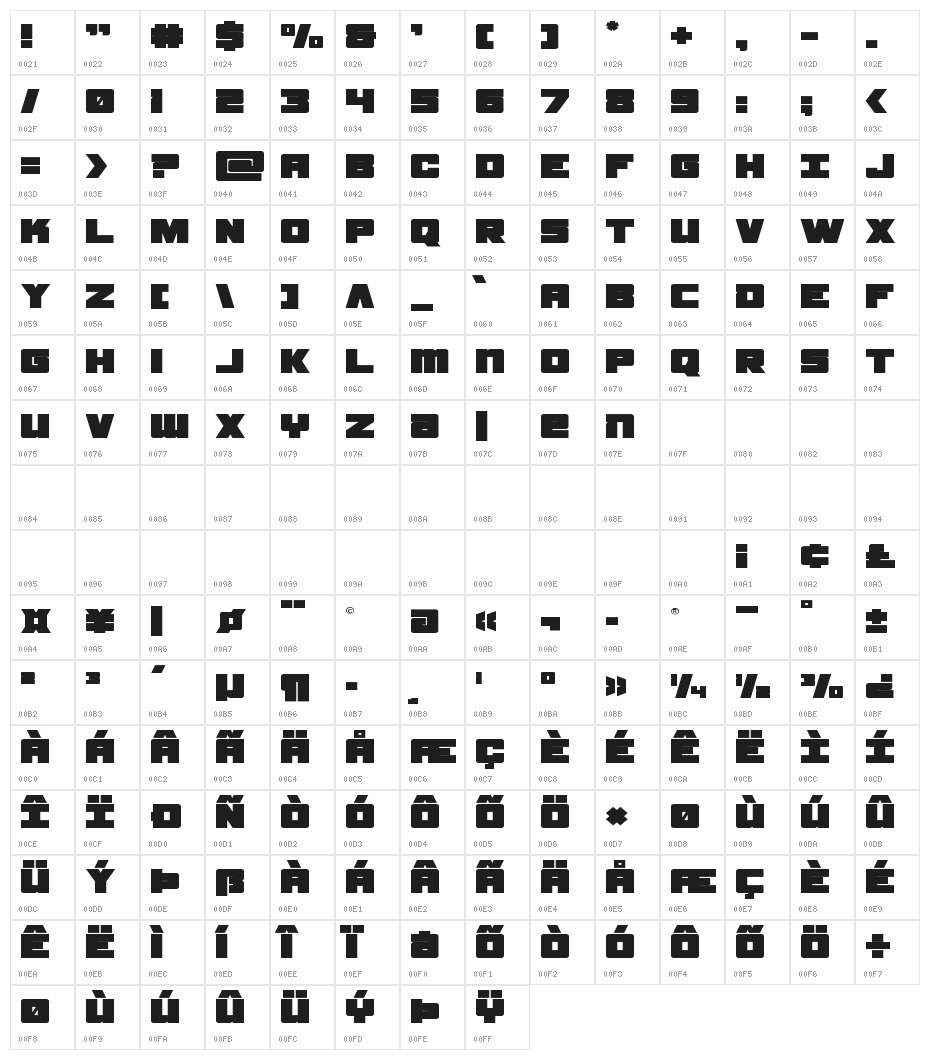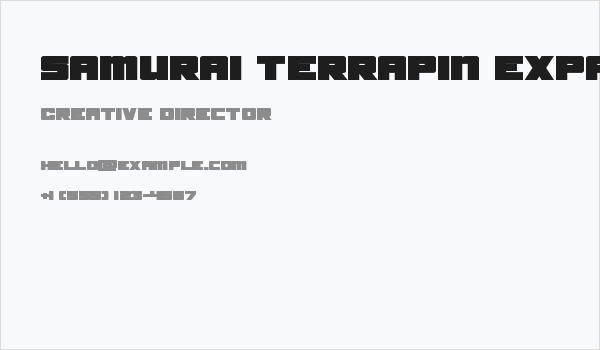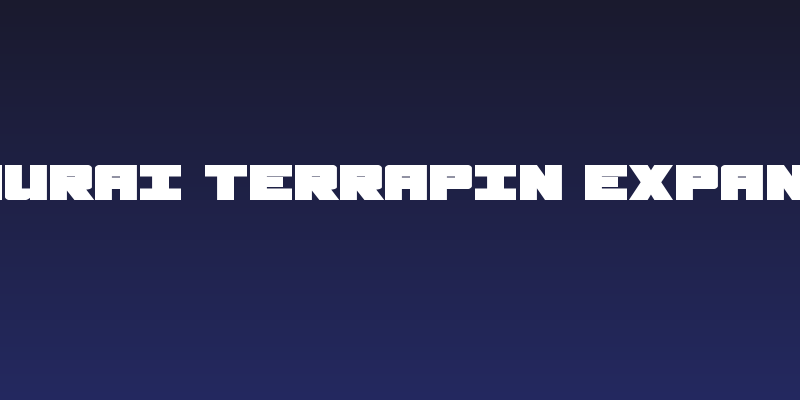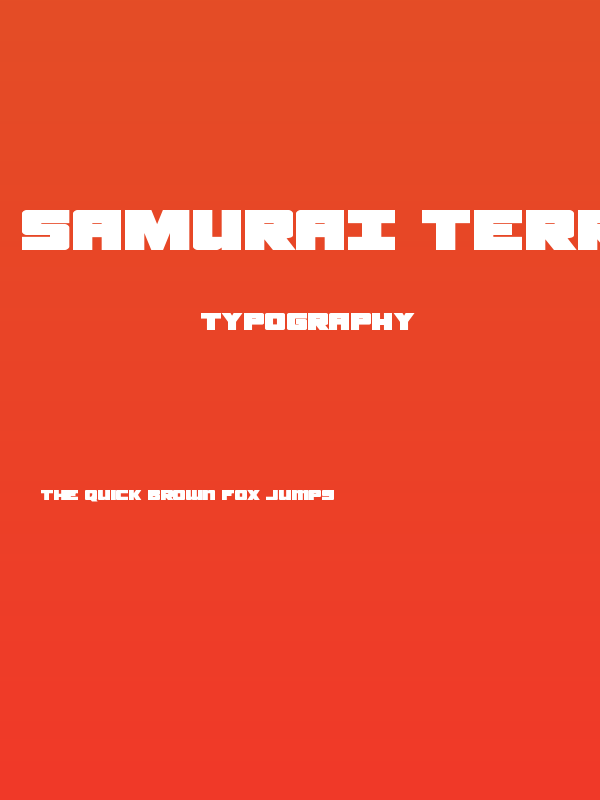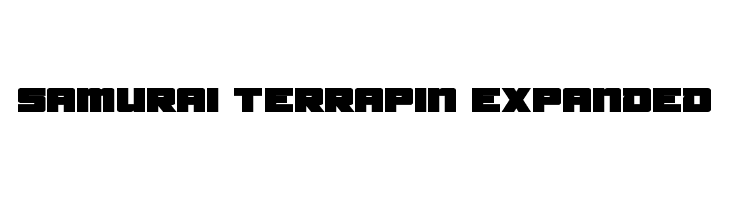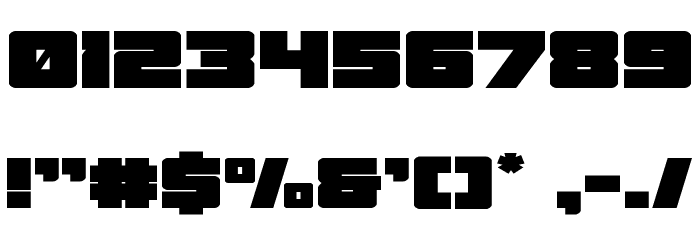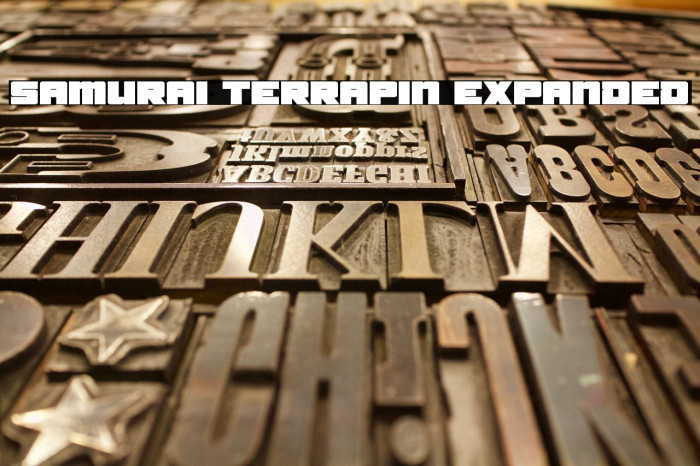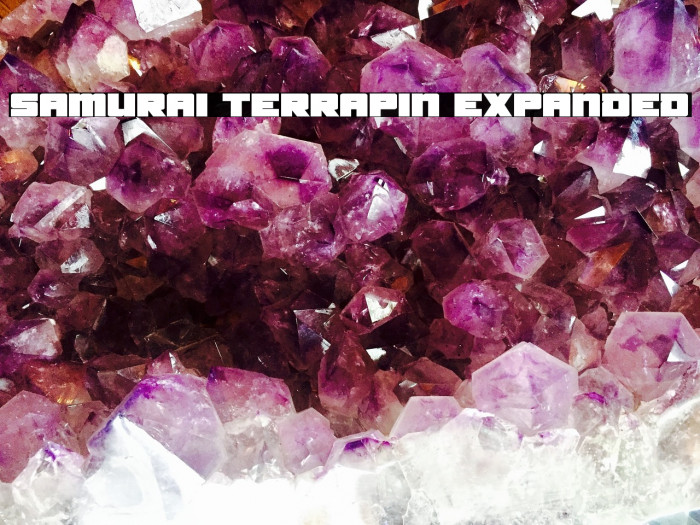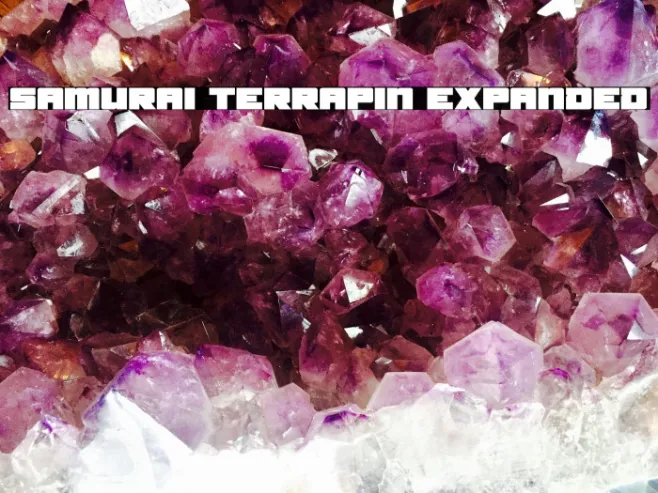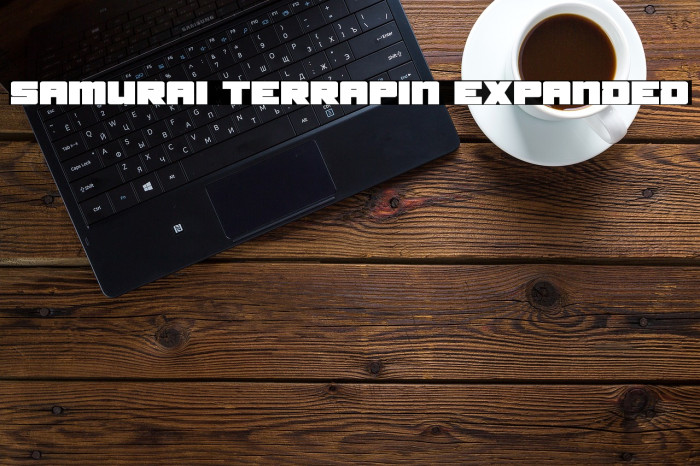
Samurai Terrapin Expanded Font
Samurai Terrapin Expanded Description
This font features a bold and striking design with a distinctly modern and geometric aesthetic. The characters are blocky and robust, with a strong presence that commands attention. Each letter is crafted with sharp angles and clean lines, creating a sense of power and stability. The uppercase and lowercase letters maintain a consistent weight, contributing to a cohesive and uniform appearance. The numerals and special characters follow the same design principles, ensuring versatility across various applications. The font's expanded width allows for excellent readability, making it suitable for impactful headlines and titles.
| Proposed Projects | Ideal for branding, posters, video game titles, and any project requiring a bold, modern look. |